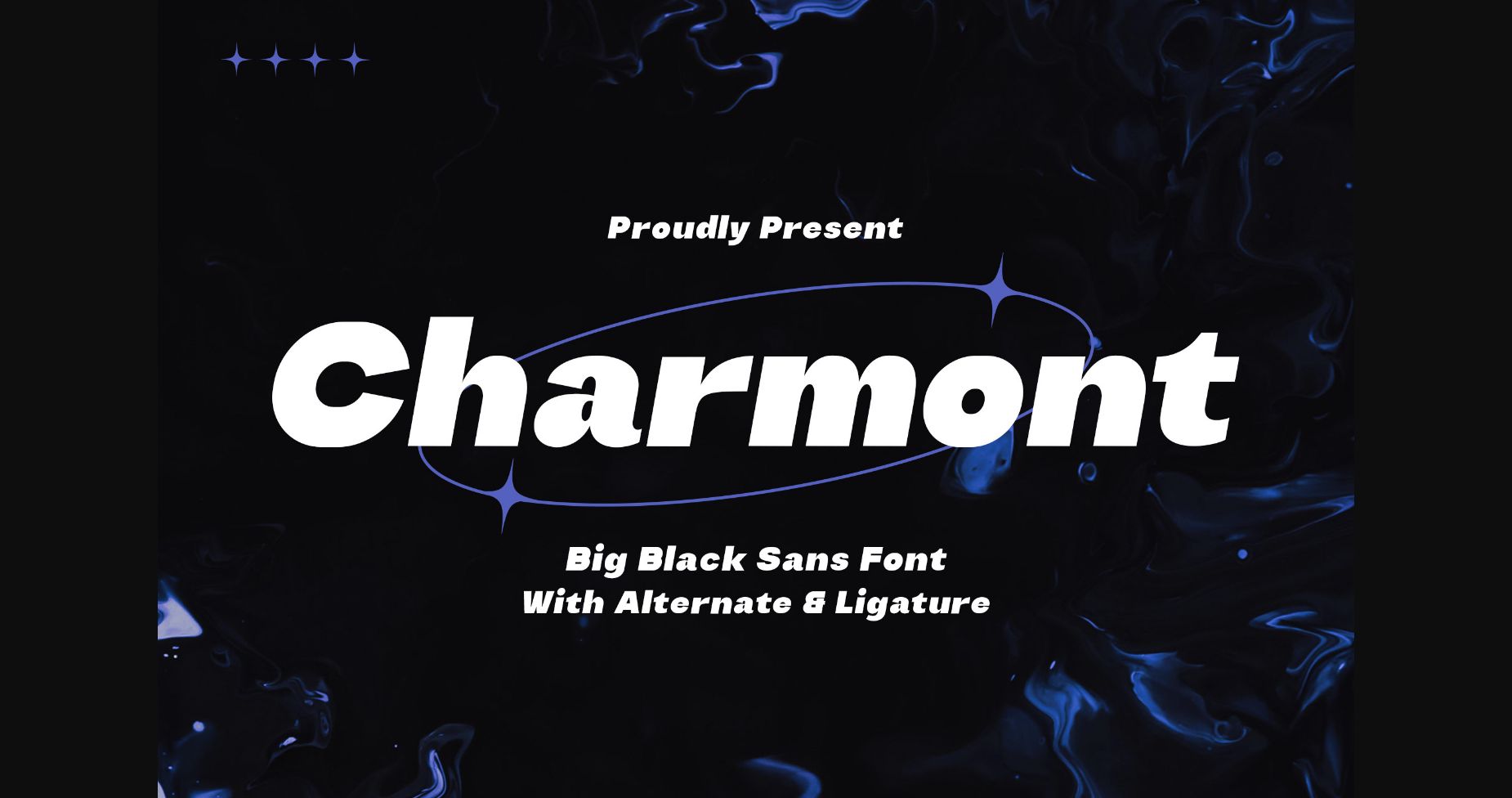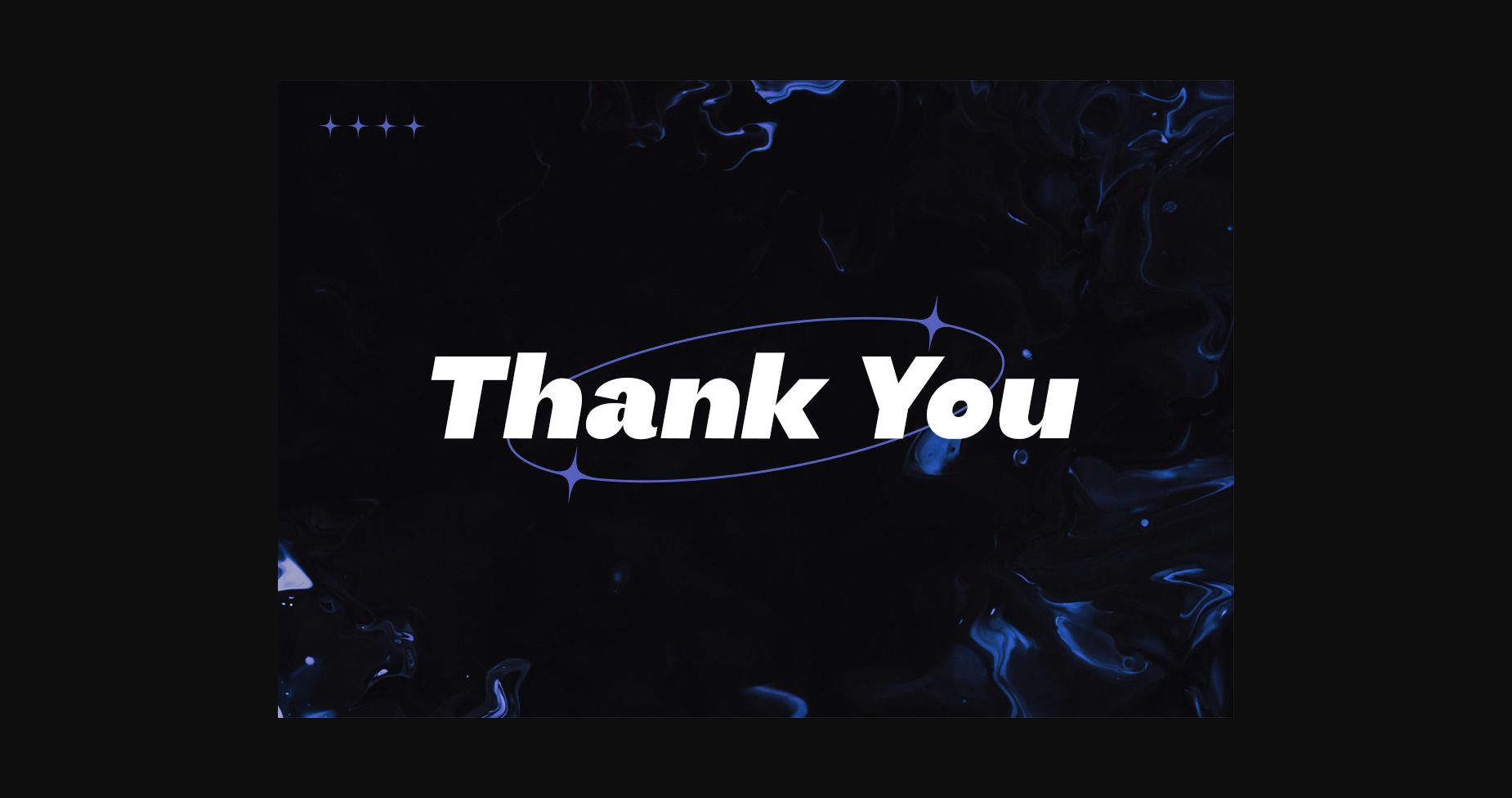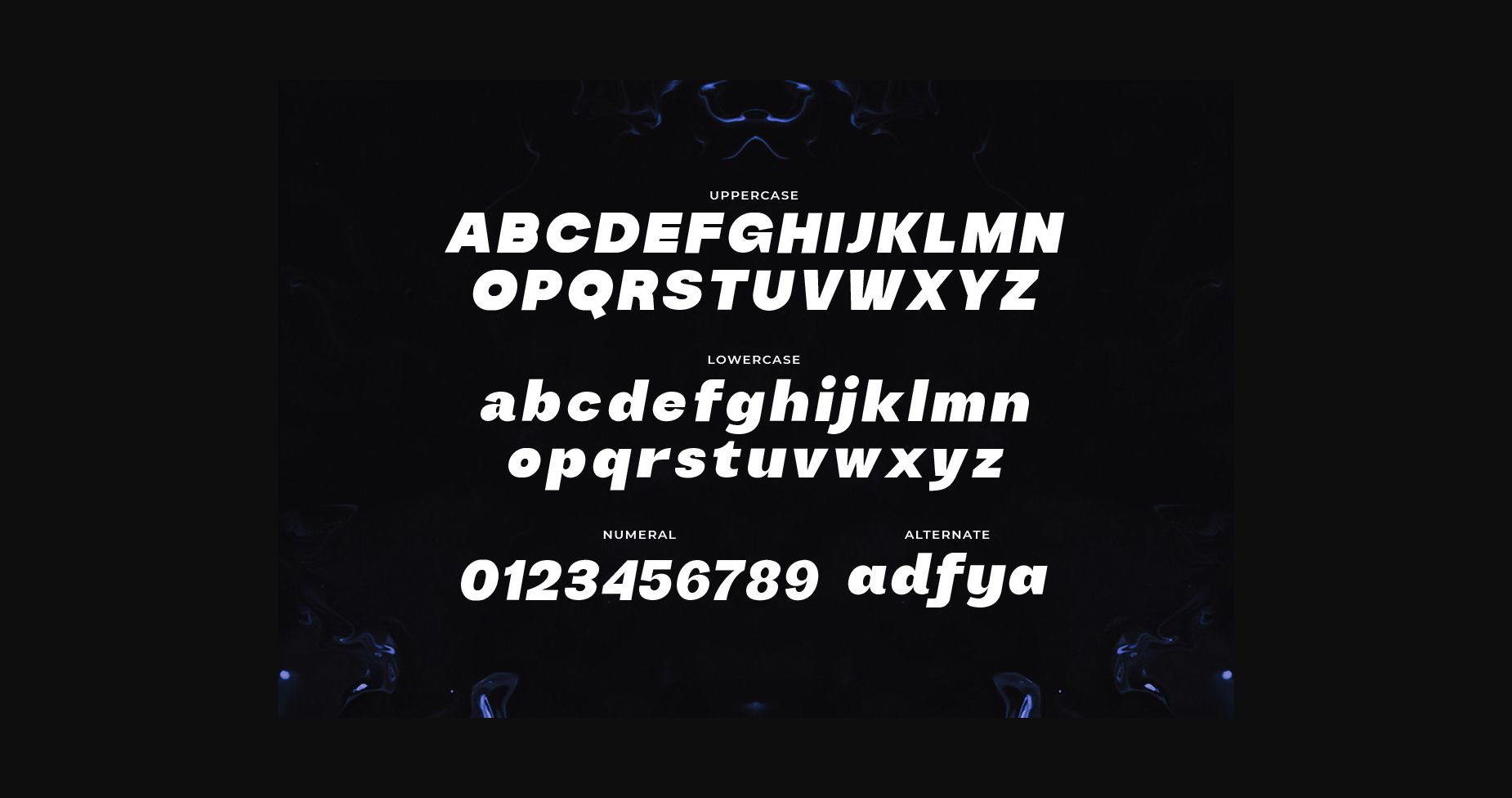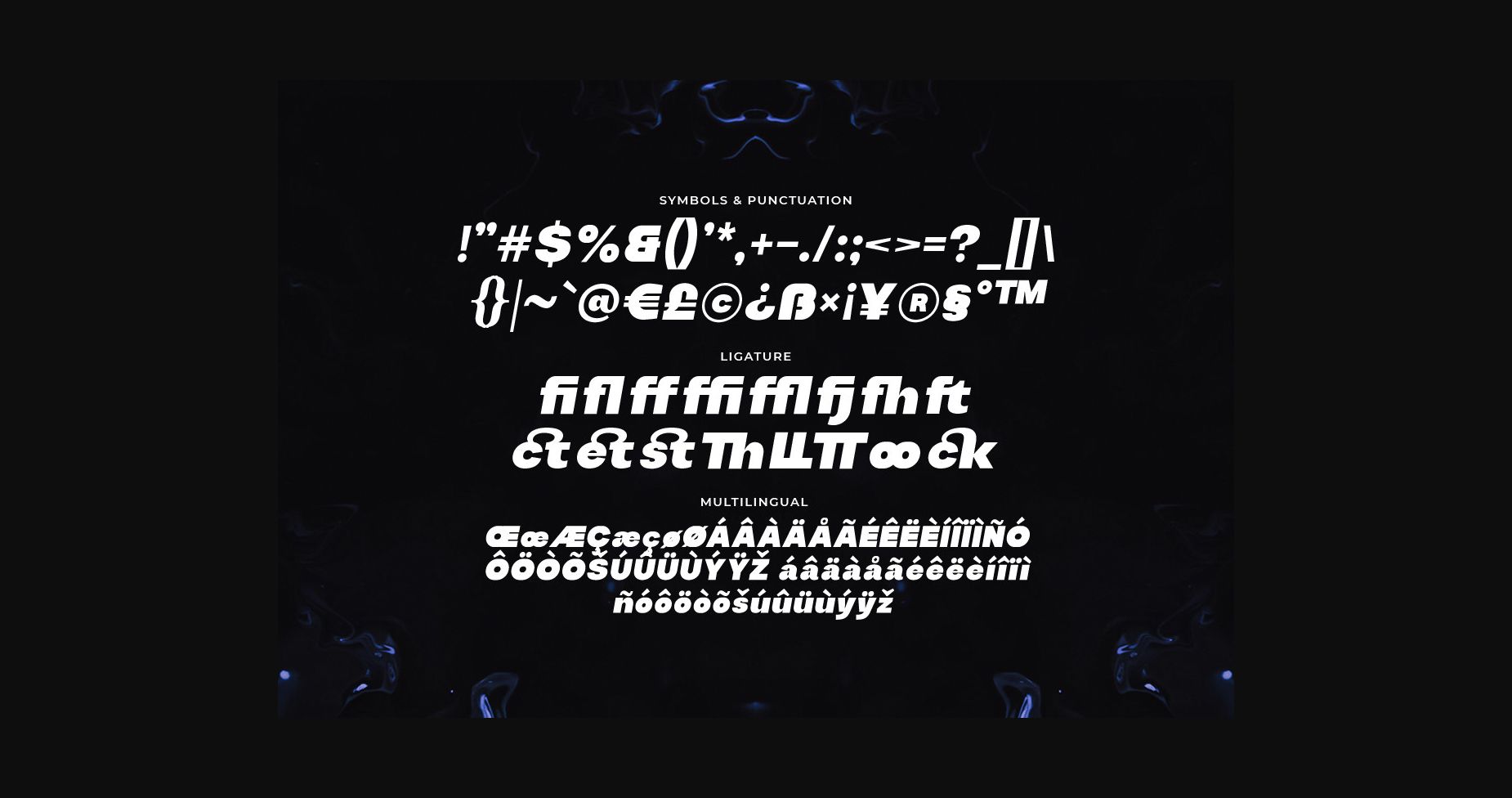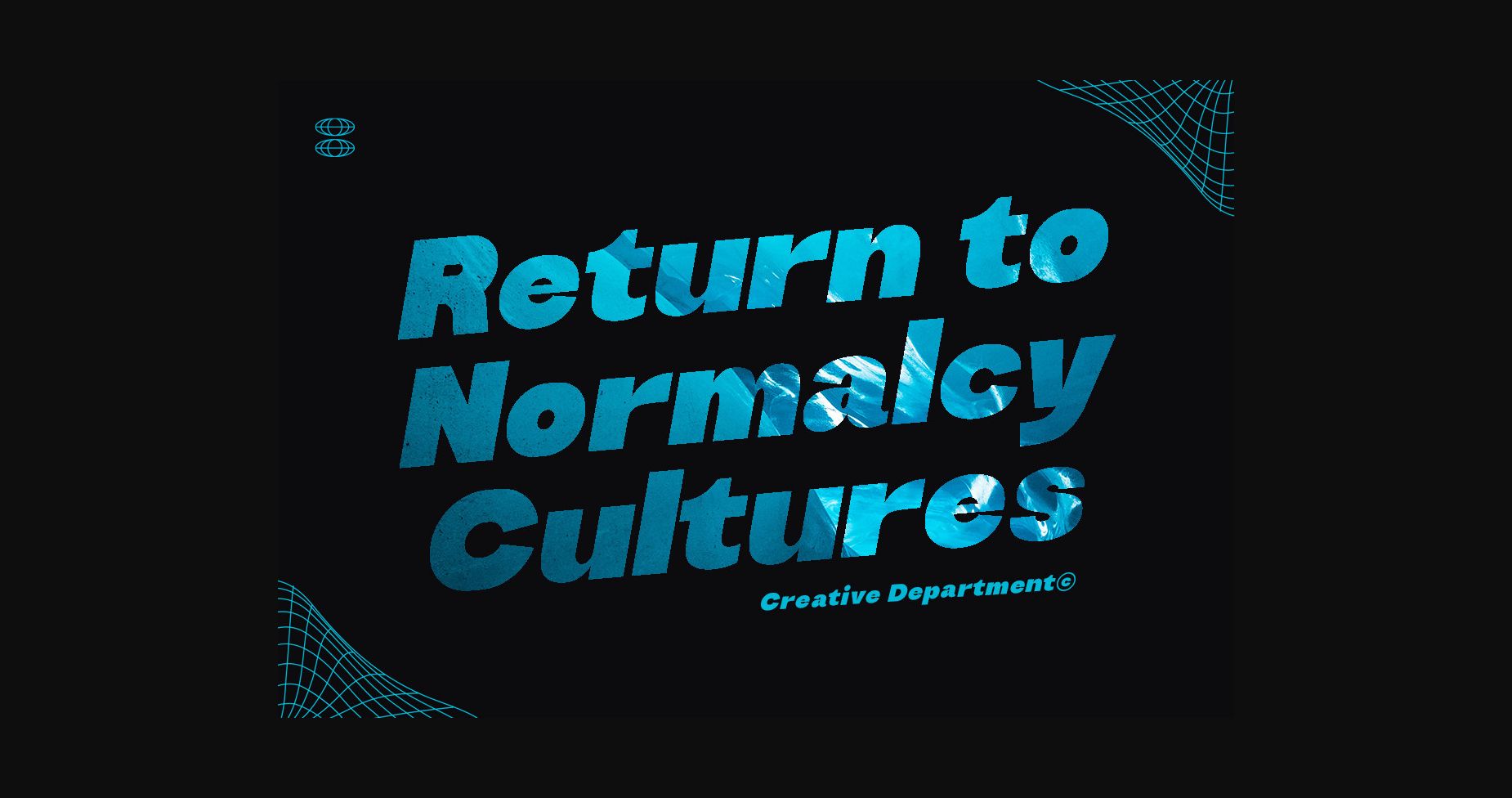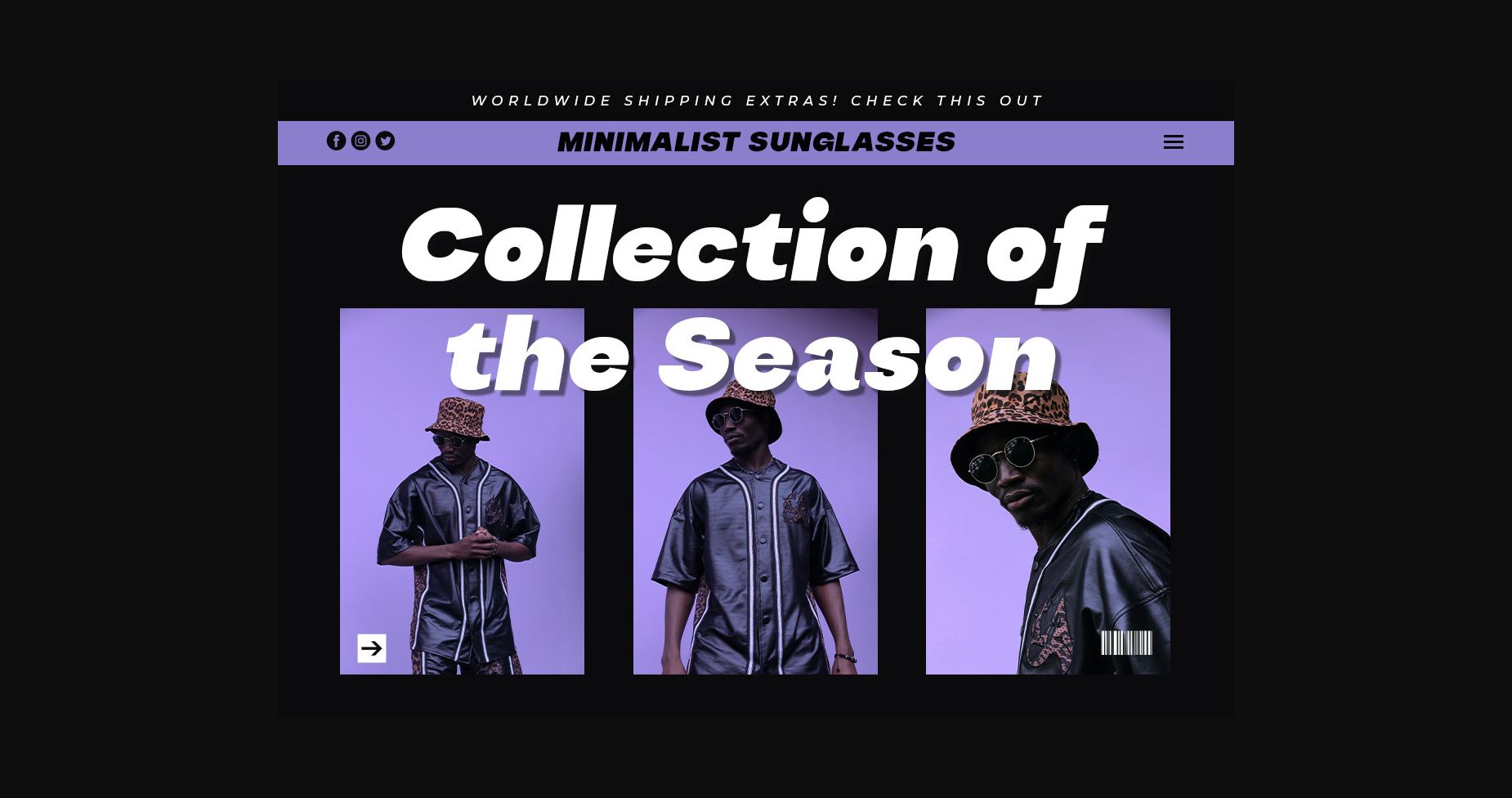
About Charmont Font
Introducing “Charmont,” a bold and powerful big black sans font that demands attention. With its strong lines and impactful design, this font is perfect for designs that need to make a statement. Whether you’re designing a poster, creating marketing materials, or crafting a website, Charmont will give your project a powerful and bold look.
Charmont is a versatile font that can be used in a variety of settings. Its big and bold design makes it perfect for headlines, titles, and other attention-grabbing elements, while its sleek and modern look makes it a great choice for designs that require a touch of sophistication.